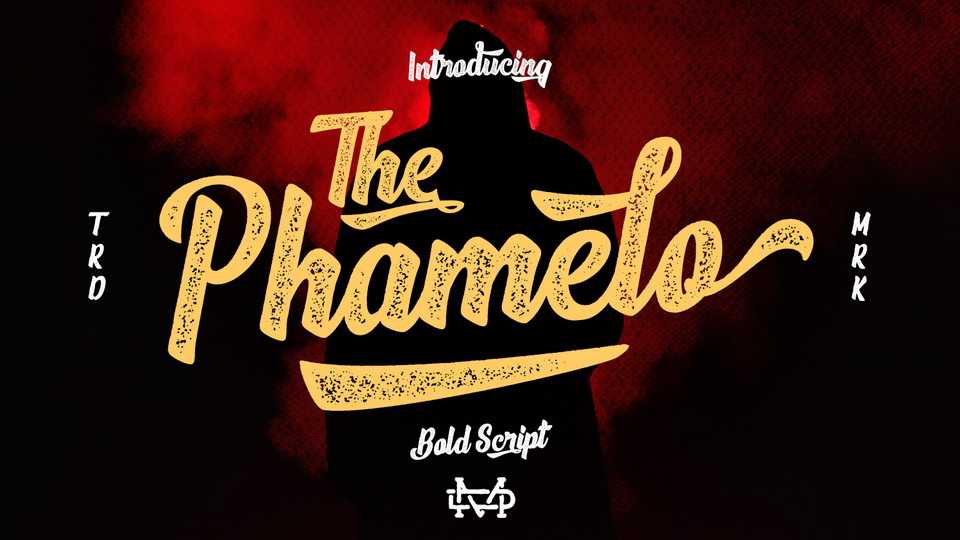
Download The Phamelo font, an attractive bold script with vintage feel. Perfect for all your designs project, logos, branding, merchandise, event and more.
Designer: TypeClassHeroes